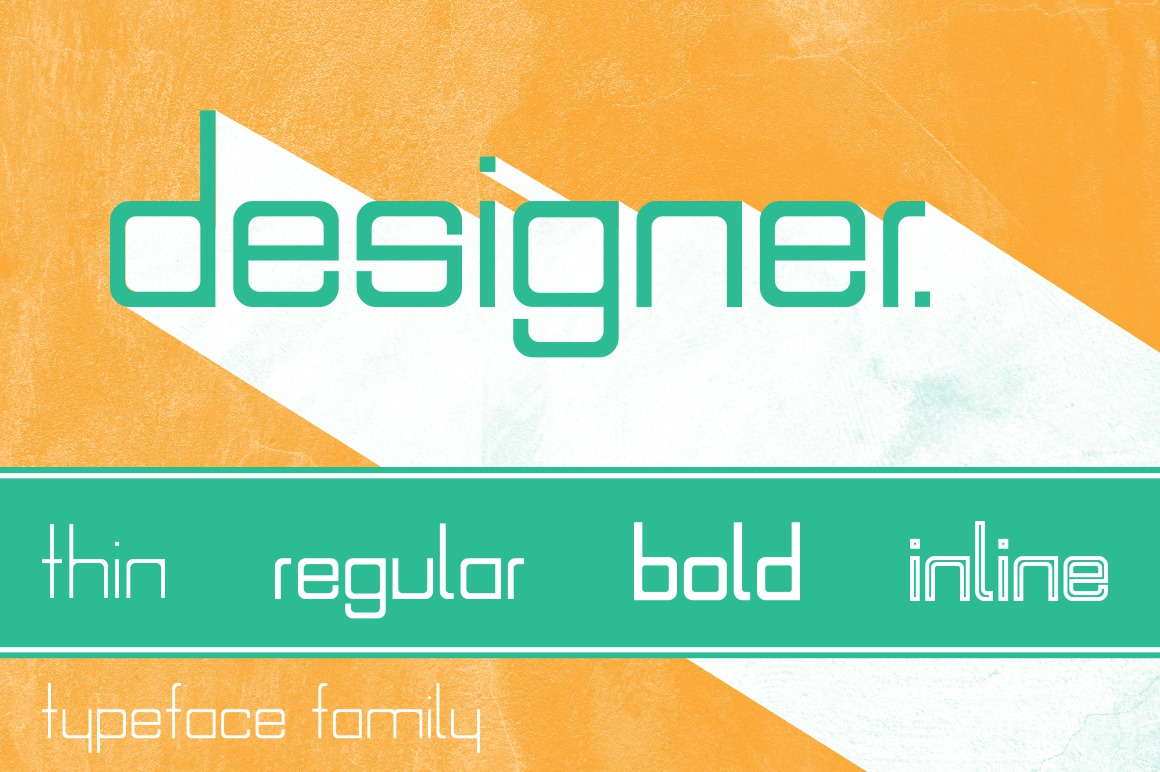
Designer Typeface
Designer typeface is a contemporary geometric flat font family, available in thin, regular, bold and inline styles, suitable for large size use like titles, subtitles, names, logos etc..
Included: 200+ glyphs (uppercase, lowercase, numbers, punctuation & accents).